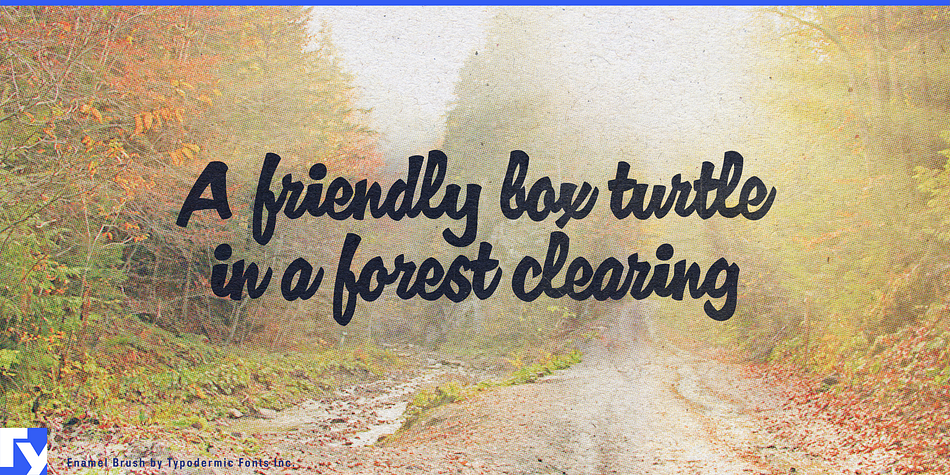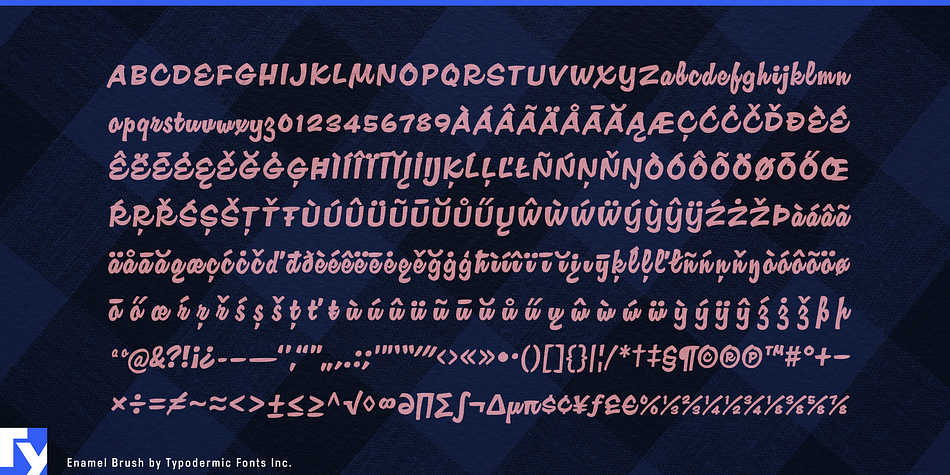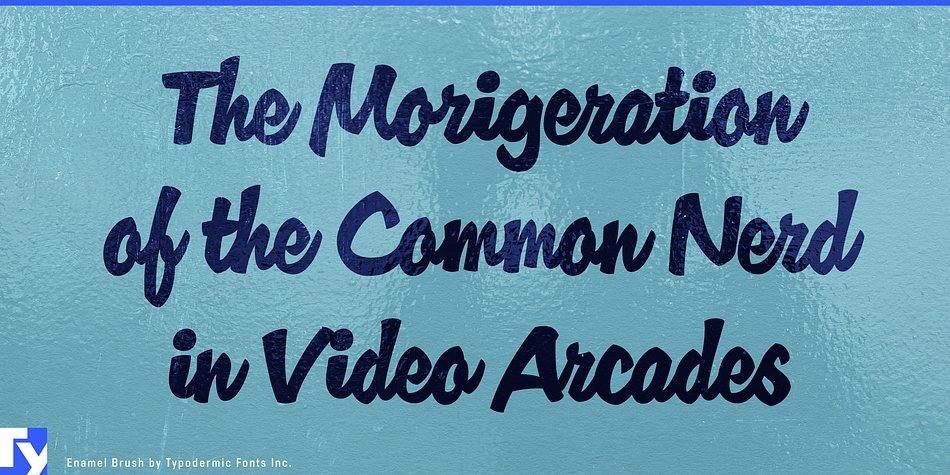
Enamel Brush is a brush script font published by Typodermic Fonts Inc.
Enamel Brush is a caricature of a 1955 font called Catalina by Emil Klumpp. In OpenType savvy applications, some letter combinations are automatically replaced with ligatures for a more natural look.